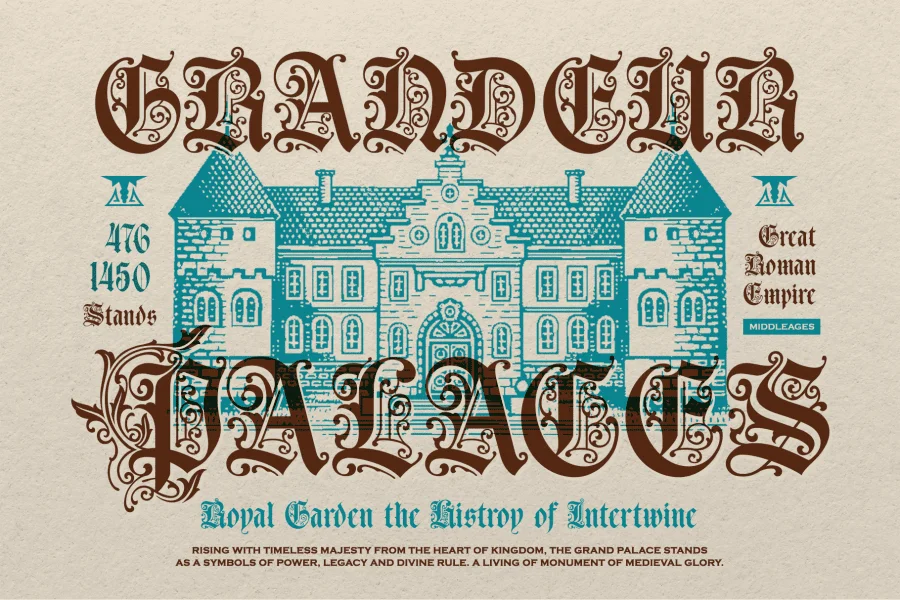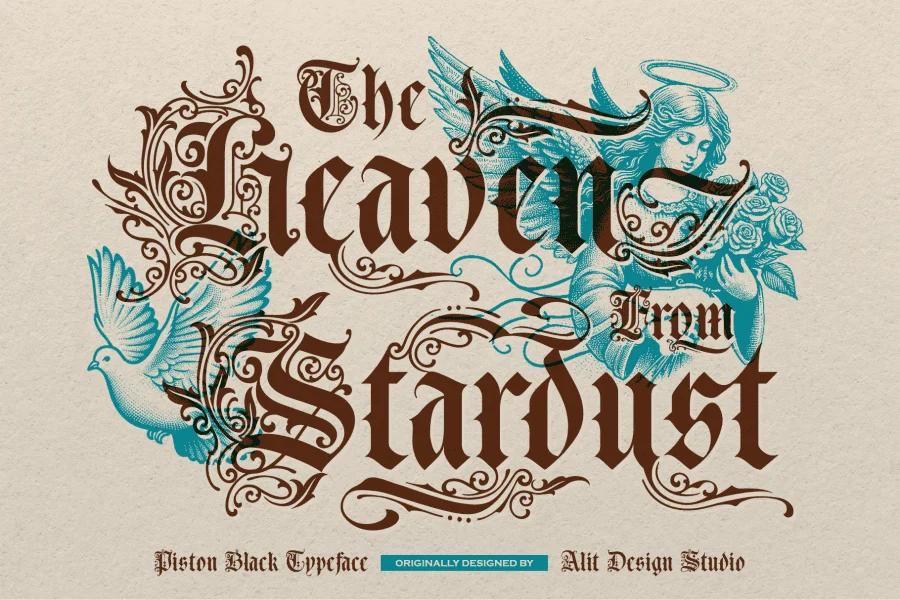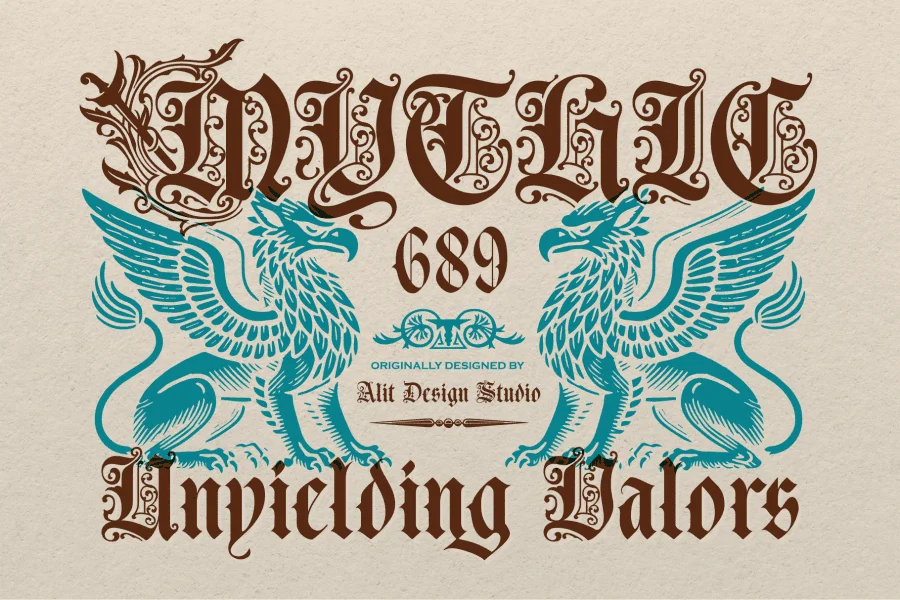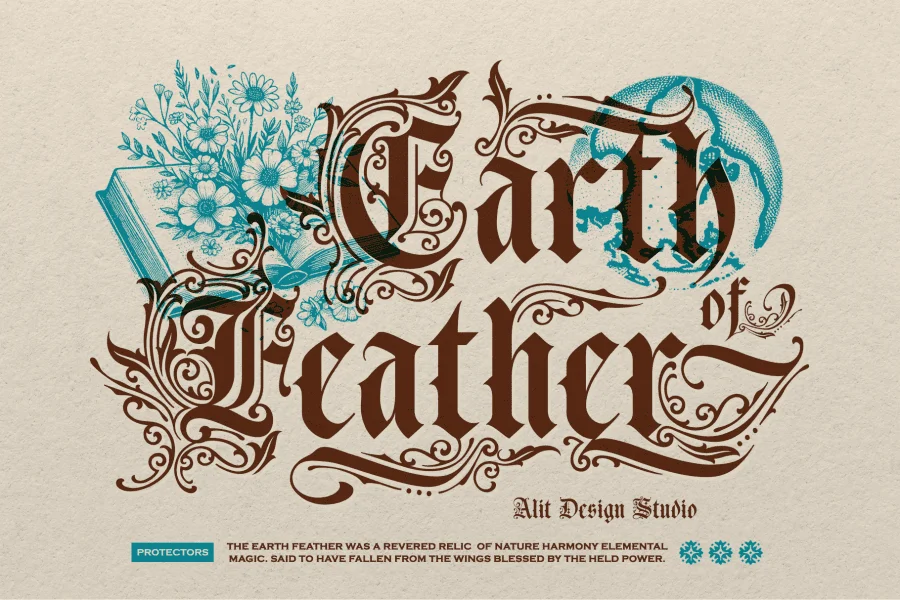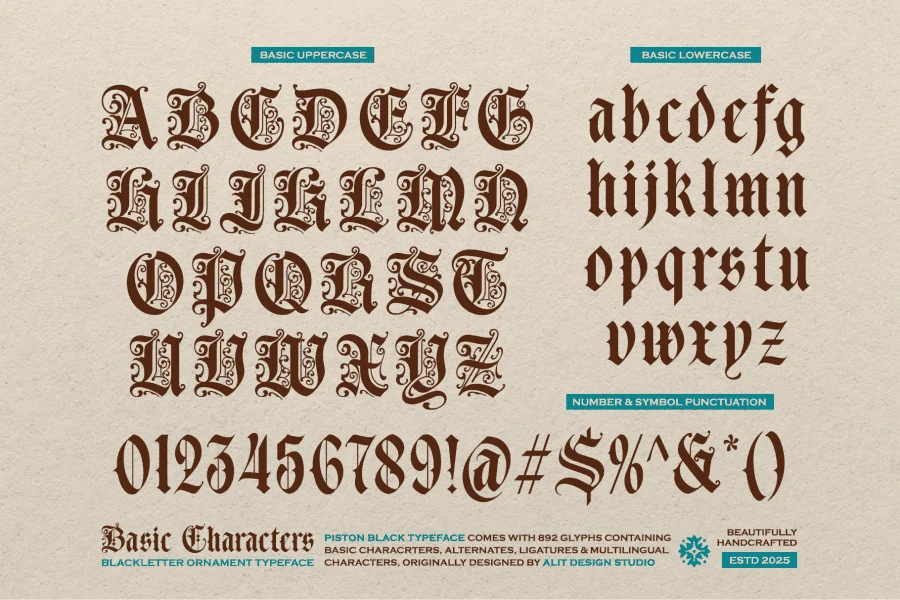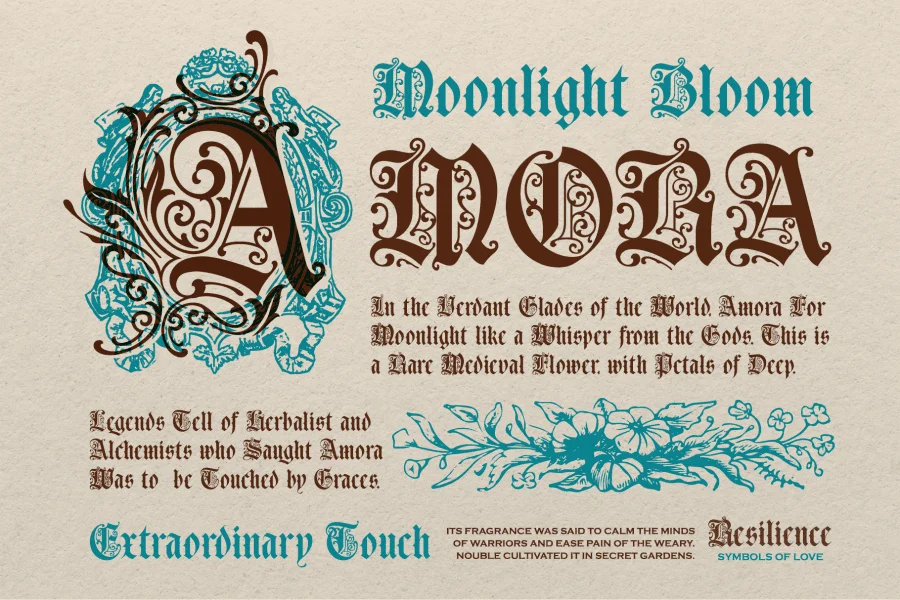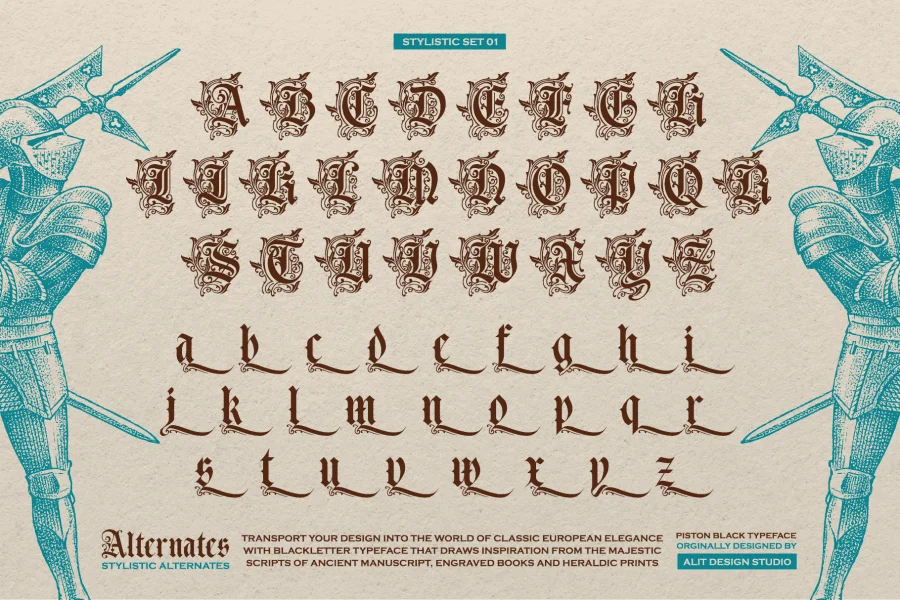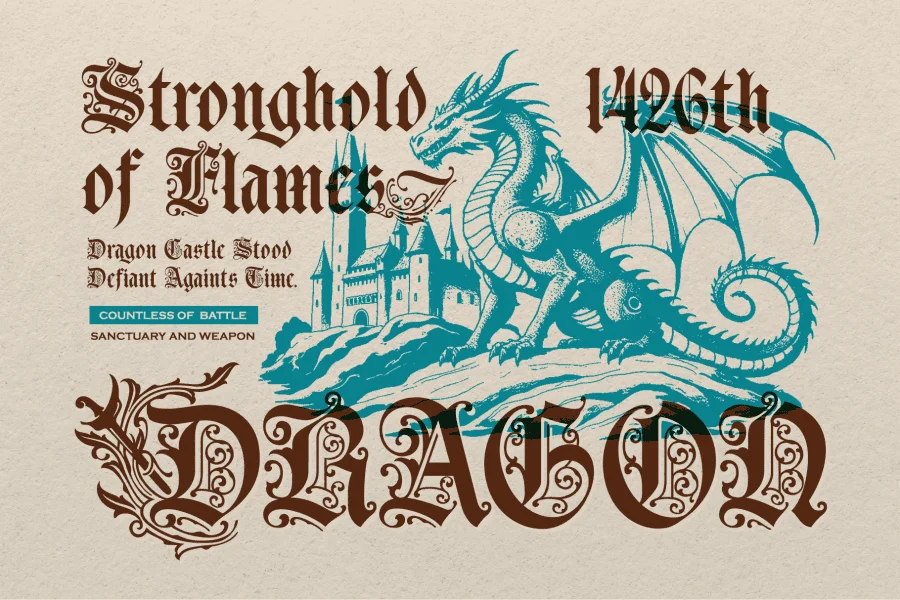
Piston Black Typeface
Classic Blackletter with Exquisite Ornamental Detailing
Piston Black is an intricately handcrafted blackletter ornament typeface that draws inspiration from medieval manuscripts, gothic engravings, and vintage heraldry. Designed for creators who seek a typeface that embodies elegance, strength, and timeless sophistication, this font is perfect for branding, packaging, editorial layouts, book covers, and ceremonial documents.
Carefully crafted by Alit Design Studio, Piston Black bridges the gap between tradition and innovation. Its unique blend of classic blackletter structure and ornamental flourishes delivers a dynamic and expressive typographic experience. Every curve and stroke is imbued with handcrafted precision, making it a standout choice for designers who want their work to exude power, artistry, and attention to detail.